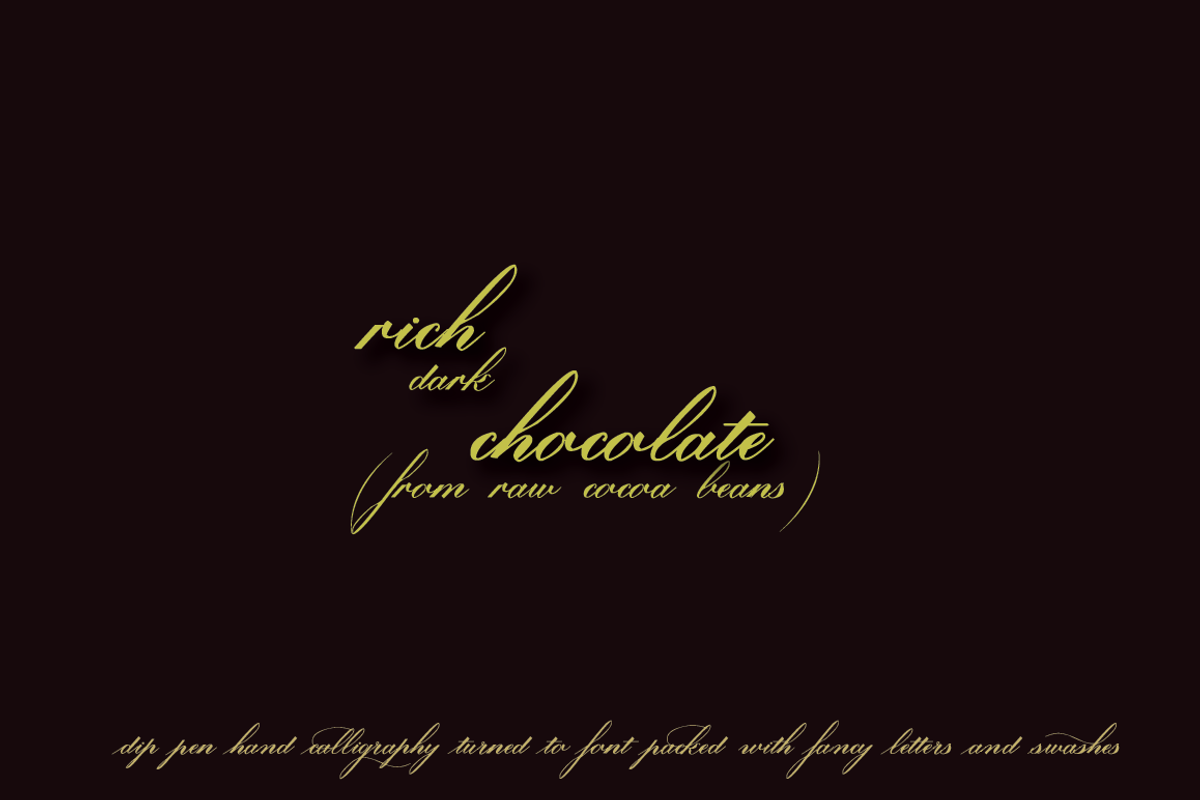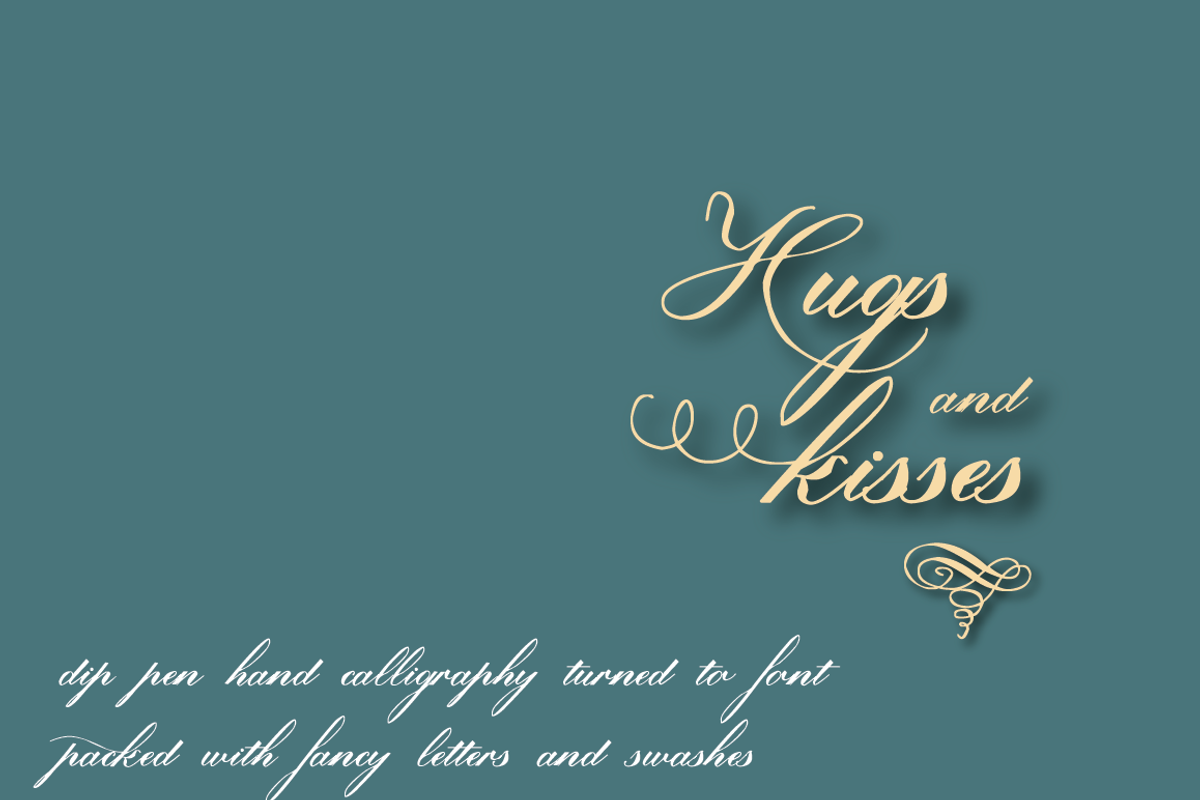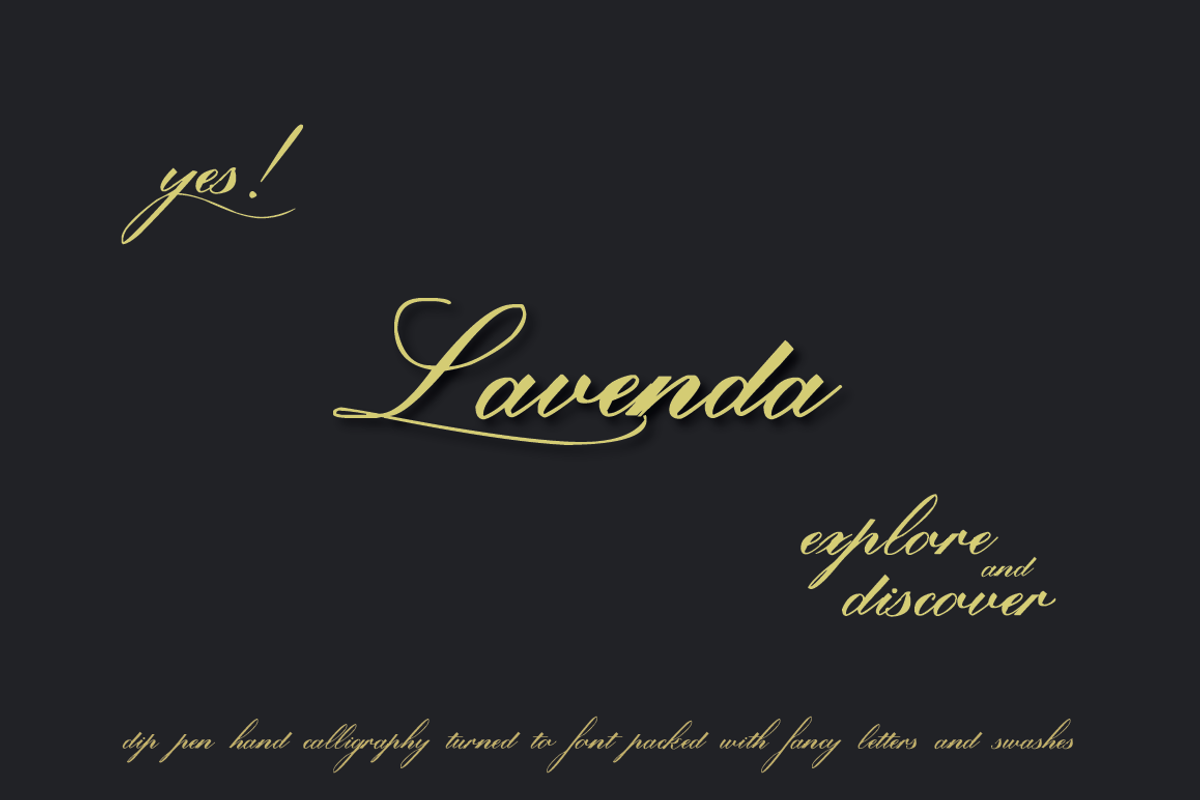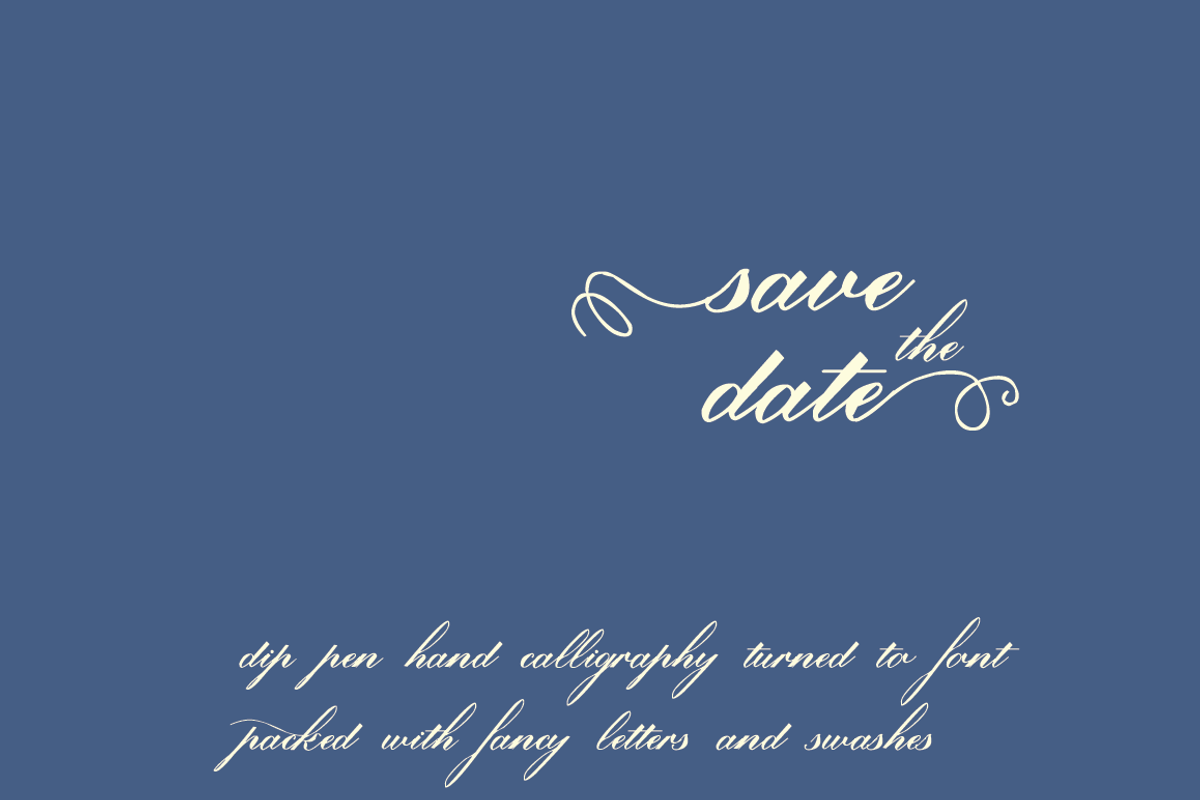
Lavenda Font
Lavenda Font by Aga Silva is a font selected for branding, posters, packaging, typography.
- Apart from swashes, alternates and ligatures - number of fancy dingbats in also included.
- Lavenda font includes the following Open Type Features: Access All Alternates Contextual Alternates Discretionary Ligatures Fractions Old St
- Access All Alternates
- Contextual Alternates
- Discretionary Ligatures
- Fractions
- Old Style Figures
- Standard Ligatures
- Stylistic Sets (8)
- Subscript
Lavenda Font by Aga Silva fits naturally into Branding, posters, packaging, typography.